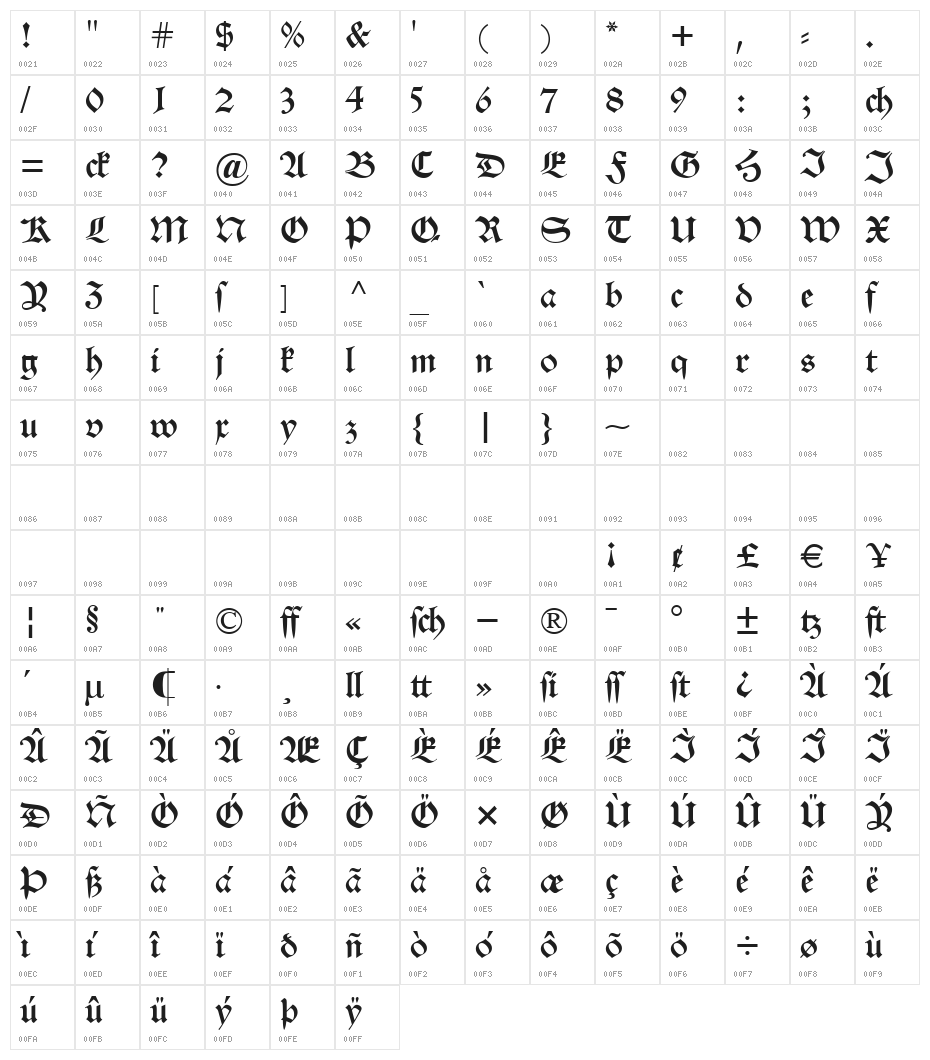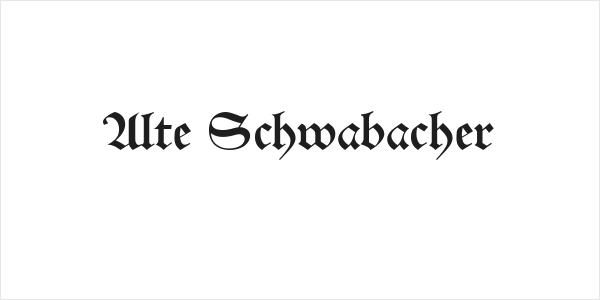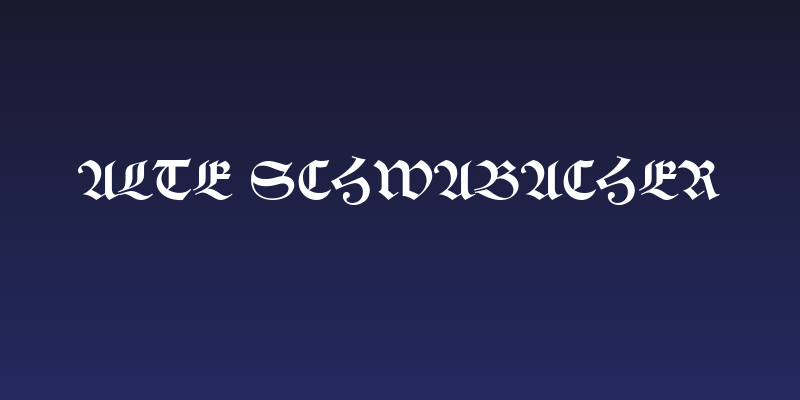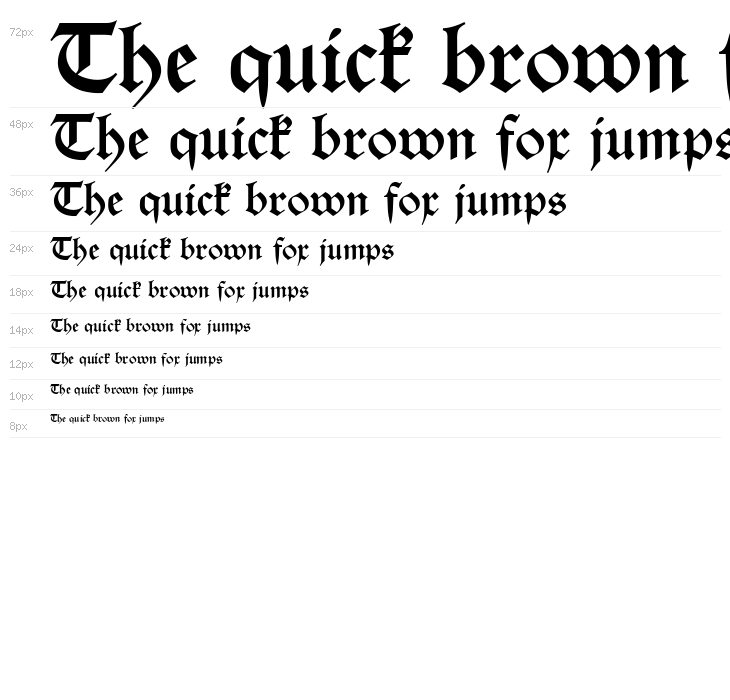
Alte Schwabacher Font
Alte Schwabacher Description
This font is a classic example of the Blackletter style, characterized by its intricate and ornate letterforms. The uppercase letters are bold and dramatic, with sharp angles and elaborate flourishes that give it a historical and authoritative feel. The lowercase letters maintain the same level of detail, with a slightly more condensed form that enhances readability. The numerals are consistent with the overall style, featuring similar angular and decorative elements. Special characters are equally ornate, fitting seamlessly into the design. This font exudes a sense of tradition and formality, making it ideal for projects that require a touch of historical elegance.
| Use Case | Headlines, Logos, Decorative text |
| Proposed Projects | Ideal for historical documents, certificates, wedding invitations, and branding that requires a traditional and elegant touch. |